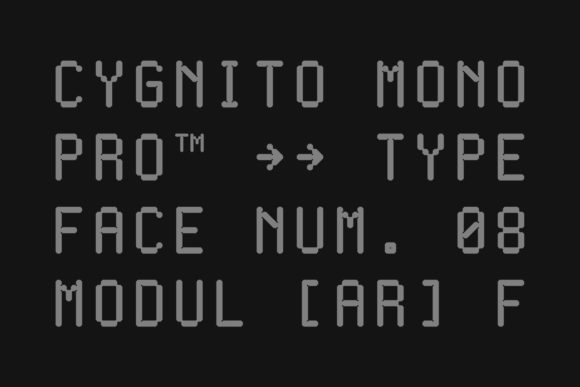
Ascend to the forefront of design innovation with Cygnito Mono, the definitive font for projecting an aura of industrial power. This captivating display font, meticulously crafted by ATK® Studio, is a symphony of sharp angles and bold lines, evoking the essence of cutting-edge machinery and boundless technological possibilities.
With Cygnito Mono, your designs will transcend the ordinary and enter the realm of the extraordinary. Its unique character set exudes a sense of authority, precision, and modernity, perfectly suited for branding projects that demand attention. Whether you're designing logos, creating product packaging, or crafting social media graphics, Cygnito Mono will elevate your work to new heights.
Unleash your creativity and let your designs soar with Cygnito Mono. Its versatility knows no bounds, adapting seamlessly to a multitude of applications. From magazine covers that demand attention to wedding invitations that exude elegance, Cygnito Mono effortlessly transforms words into art.
Experience the thrill of creating designs that captivate and inspire, designs that leave an indelible mark on the minds of your audience. Whether you're a seasoned designer or just starting your creative journey, Cygnito Mono is the perfect font to ignite your imagination and propel your designs to the next level.
Seize this opportunity to harness the power of Cygnito Mono and unlock a world of design possibilities. Let your creativity flourish, let your designs shine, and let Cygnito Mono guide you towards design excellence.